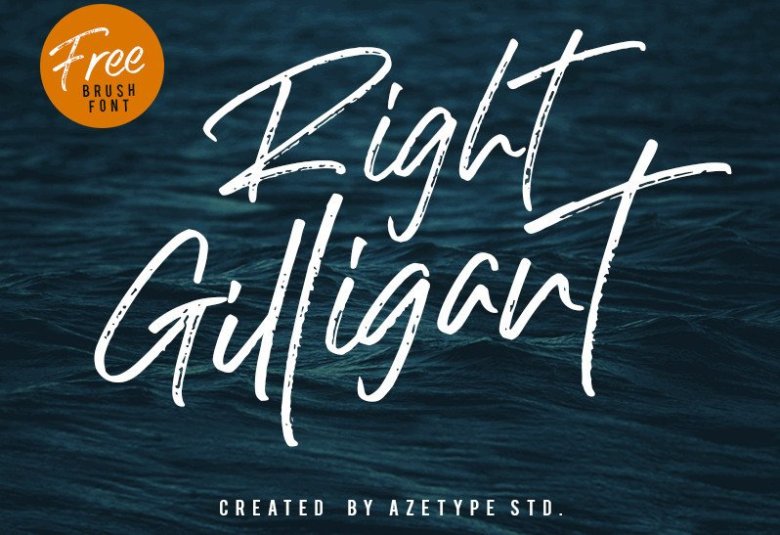
Right Gilligant Brush Font
A new brush script font by Azetype. This is a Hand brushed typeface, it is a dry brush script made from natural flow scratch with signature style. Introducing Right Gilligant Font. A fabulously fun yet elegant script font with tons of energy, allowing you to create beautiful hand-made typography in an instant. Bigarus is guaranteed to make your text stand out – perfect for logos, printed quotes, invitations, cards, product packaging, headers and whatever your imagination holds.